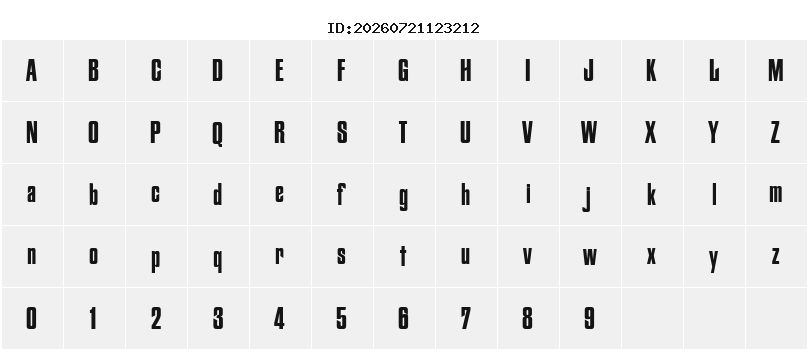
About Fiord.ttf
Fiord.ttf is a modern, elegant sans-serif font designed for ultimate readability and visual harmony. Perfect for branding, headlines, web design, and print materials.